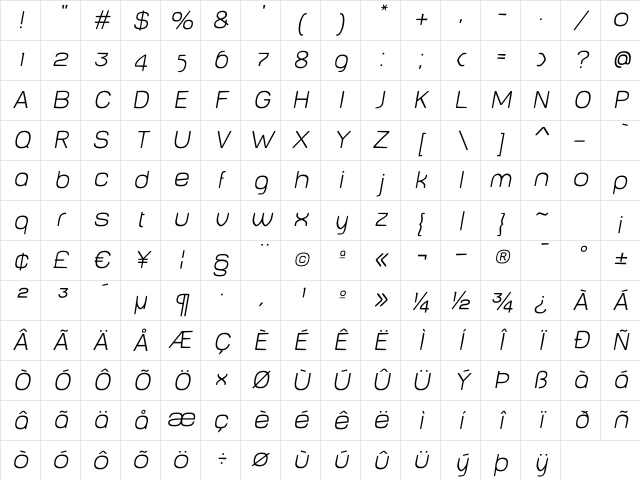
Baby MineThin Oblique Regular Free Font
Baby MineThin Oblique Regular
Design Context for Baby MineThin Oblique
Baby MineThin Oblique is a composed and adaptable typeface that performs quietly and consistently across a wide range of design contexts. The slanted form adds forward momentum and visual energy. Its slender proportions lend an understated elegance to any composition.
Pro Tip: Use Baby MineThin Oblique for emphasis, pull quotes, and subheadings where its slanted energy can add rhythm to the layout.